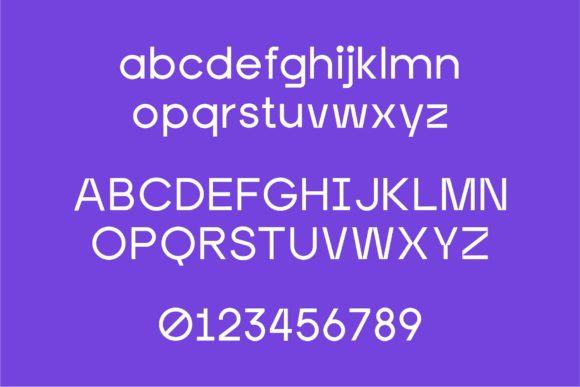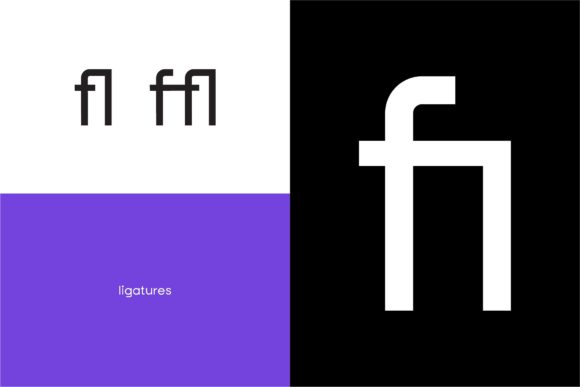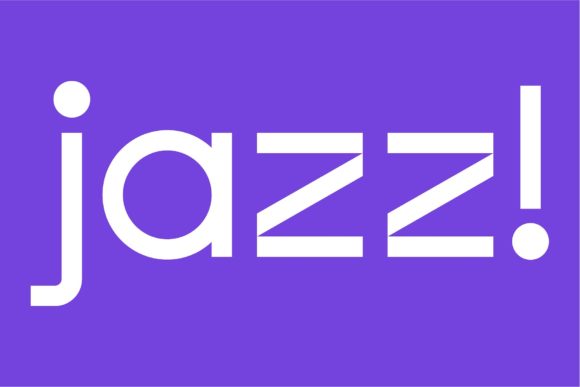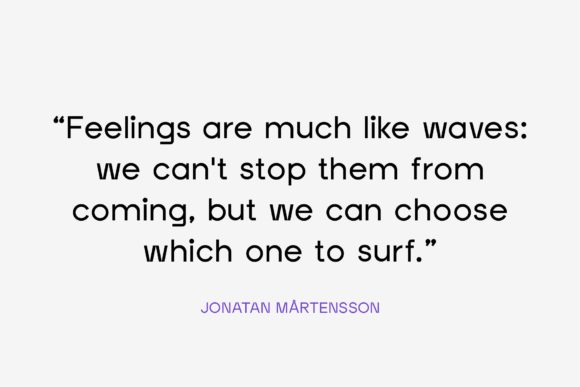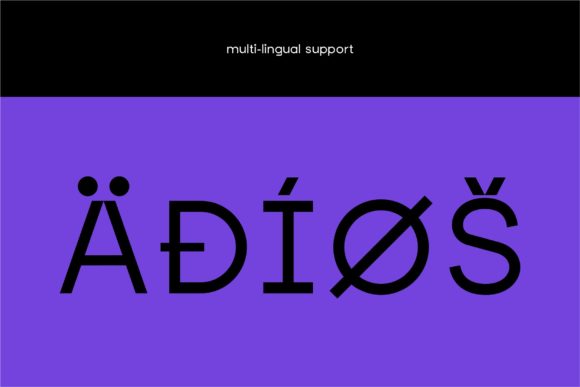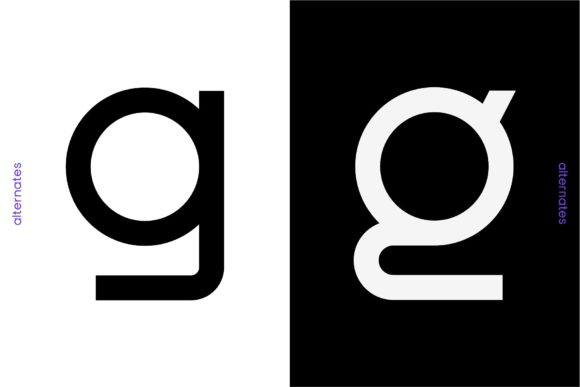
Introducing Enzyme Font: Elevate Your Designs with a Modernist Edge
In the world of typography, a new font can breathe life into your designs, setting them apart from the ordinary. Meet Enzyme Font, a contemporary sans-serif display font that’s making waves in the design community. Crafted to infuse your posters, editorial layouts, and logos with a unique, modernist edge, Enzyme Font is the perfect addition to your typographic arsenal.
The Birth of Enzyme Font
Enzyme Font was born out of a passion for modernism and a desire to push the boundaries of sans-serif typography. Its creation involved a meticulous process of refinement and innovation, ensuring that it not only meets but exceeds the expectations of designers and crafters. With its sleek lines and contemporary feel, Enzyme Font is poised to become a staple in the world of design.
Key Features of Enzyme Font
• Contemporary Sans-Serif Design: Enzyme Font boasts a clean, modern sans-serif design that lends itself perfectly to a wide range of applications, from digital media to print.
• Versatility: Whether you’re working on posters, editorial layouts, or logos, Enzyme Font adapts seamlessly, adding a touch of modernity to your work.
• Unique Edge: What sets Enzyme Font apart is its ability to bring a unique, modernist edge to your designs. It’s not just a font; it’s a statement.
• Legibility: Despite its modernist leanings, Enzyme Font does not compromise on legibility. It’s as readable as it is stylish, making it perfect for both headings and body text.
Applications of Enzyme Font
The versatility of Enzyme Font makes it suitable for a myriad of applications:
• Posters: Make your posters stand out with a bold, modern statement. Enzyme Font’s sleek design cuts through the clutter, grabbing attention and conveying your message with clarity.
• Editorial Layouts: Add a touch of sophistication to your editorial layouts. Enzyme Font’s readability and style make it perfect for both headings and body text, elevating the overall reading experience.
• Logos: For brands looking to make a modern statement, Enzyme Font offers a fresh, contemporary look that can help define a brand’s identity.
Tips for Using Enzyme Font
To get the most out of Enzyme Font, consider the following tips:
• Experiment with Sizes: Enzyme Font’s design ensures it remains legible even at smaller sizes, but it’s at larger sizes that it truly shines. Don’t be afraid to experiment with different sizes to find the perfect balance for your design.
• Play with Colors: The modernist edge of Enzyme Font can be further accentuated with bold color choices. Consider contrasting colors to make your text pop.
• Mix and Match: Don’t be afraid to combine Enzyme Font with other typefaces. Its versatility makes it an excellent choice for pairing with serif fonts for a classic-modern contrast or with other sans-serifs for a layered look.
Enzyme Font is more than just a typeface; it’s a tool for designers and crafters to express their creativity and bring a modernist edge to their work. Its contemporary sans-serif design, versatility, and unique style make it an invaluable asset for anyone looking to elevate their designs. Whether you’re a seasoned designer or a crafting enthusiast, Enzyme Font invites you to explore new possibilities in typography and design.